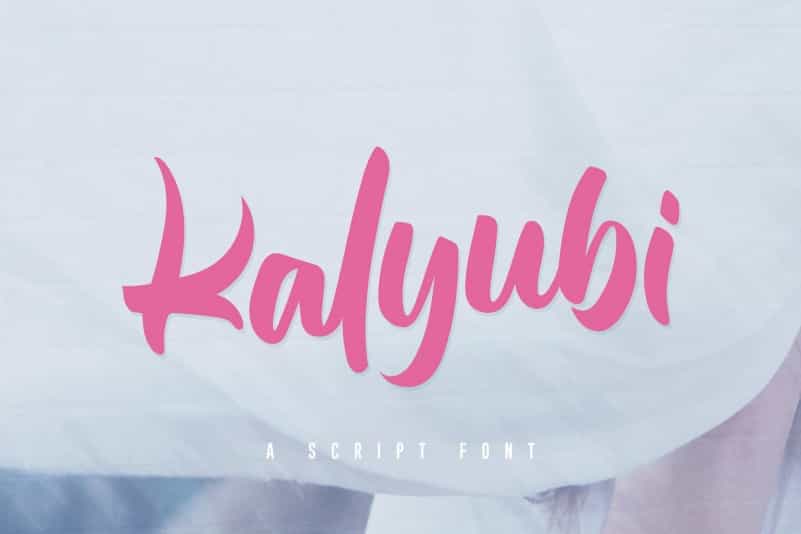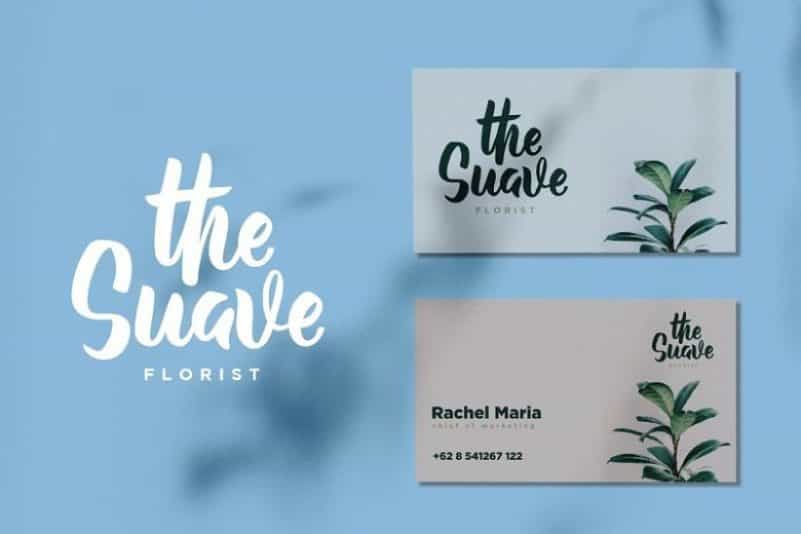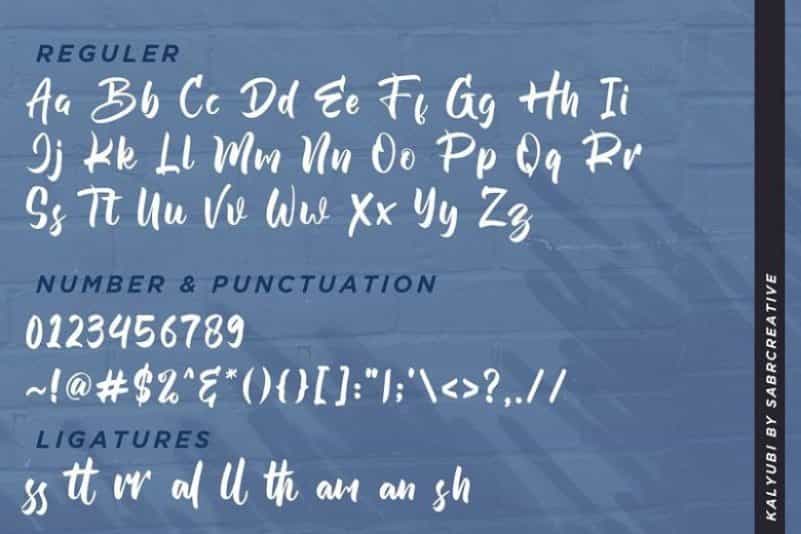
We introduced the newest font which has a bold script style we named Kalyubi. Kalyubi, with every letter being different from the others gives a feeling of strong and elegance at the same time. It is applicable to many of your projects which aim at demonstrating the image of a powerful, neat and elegant.